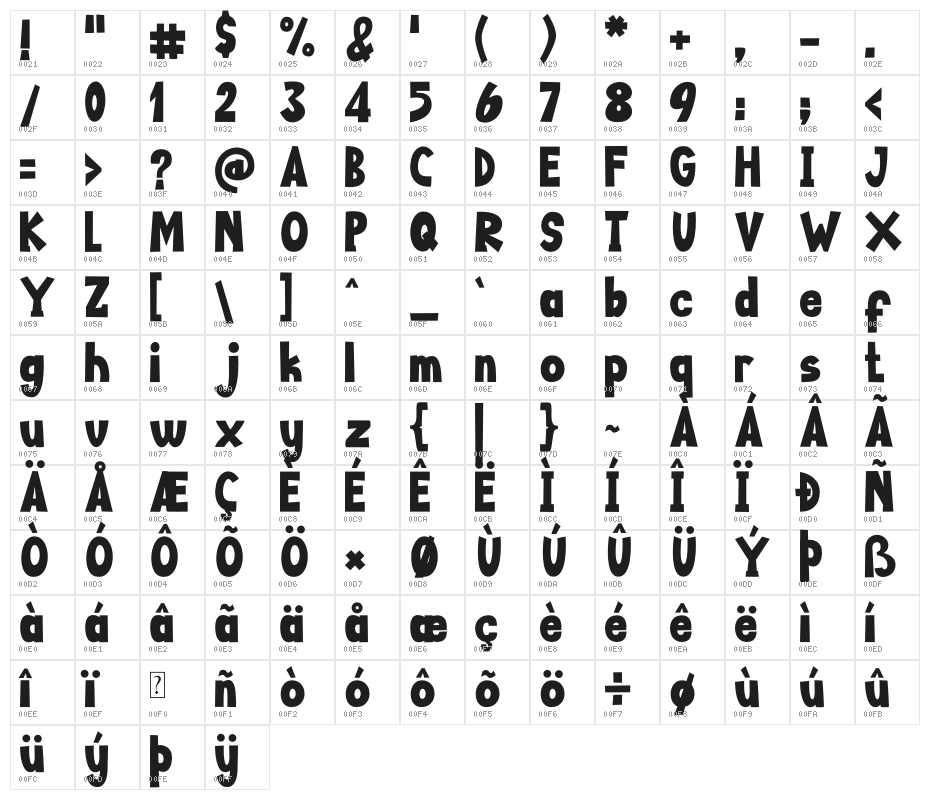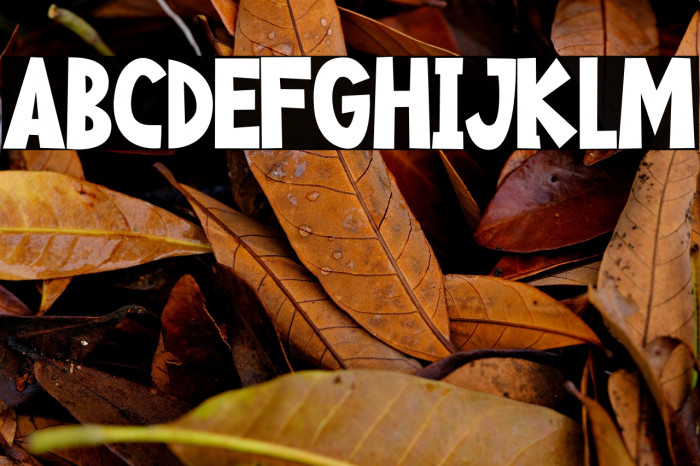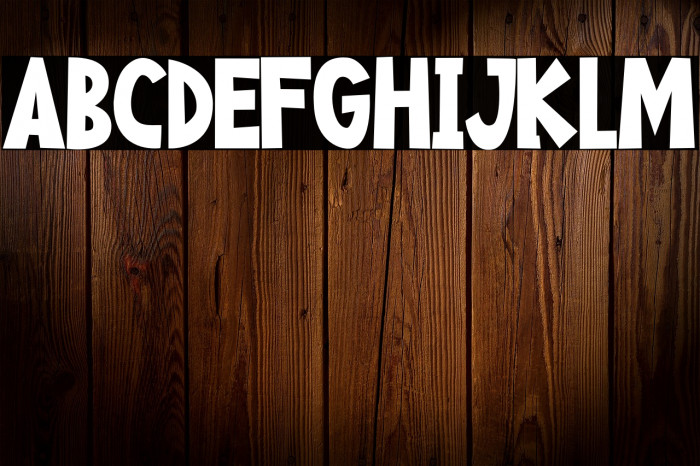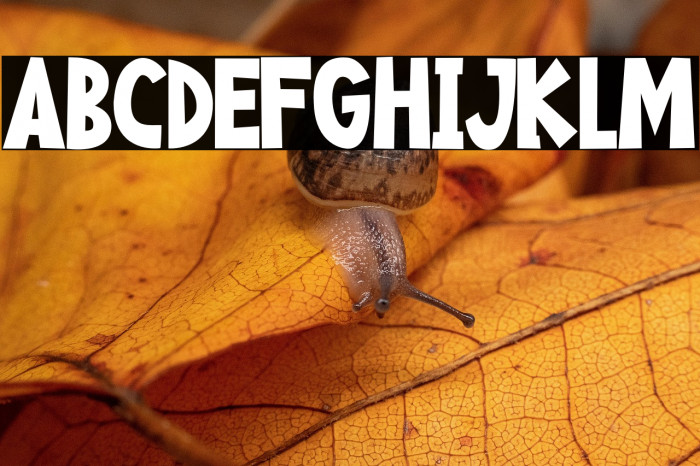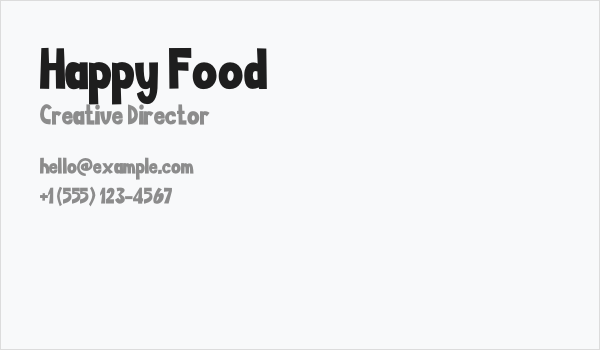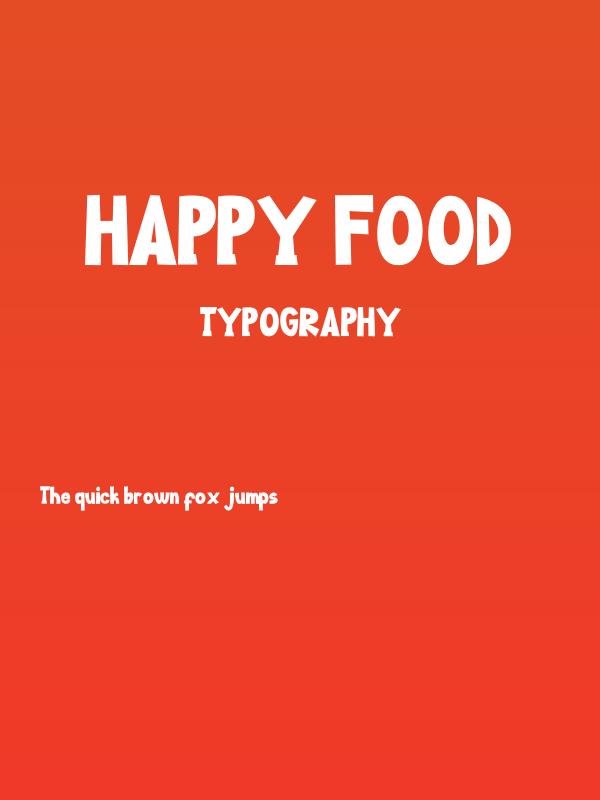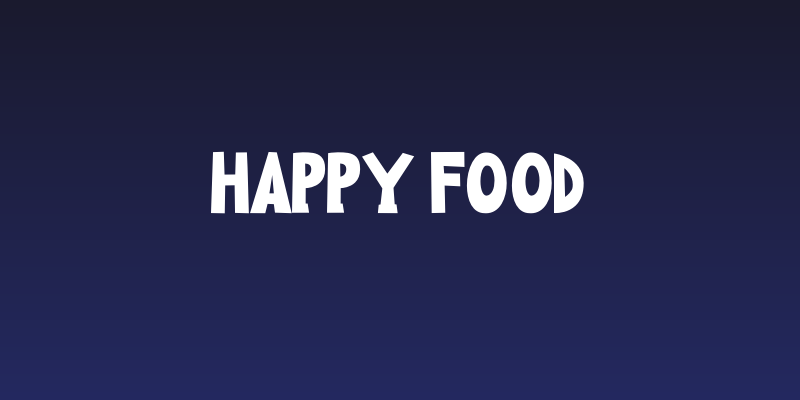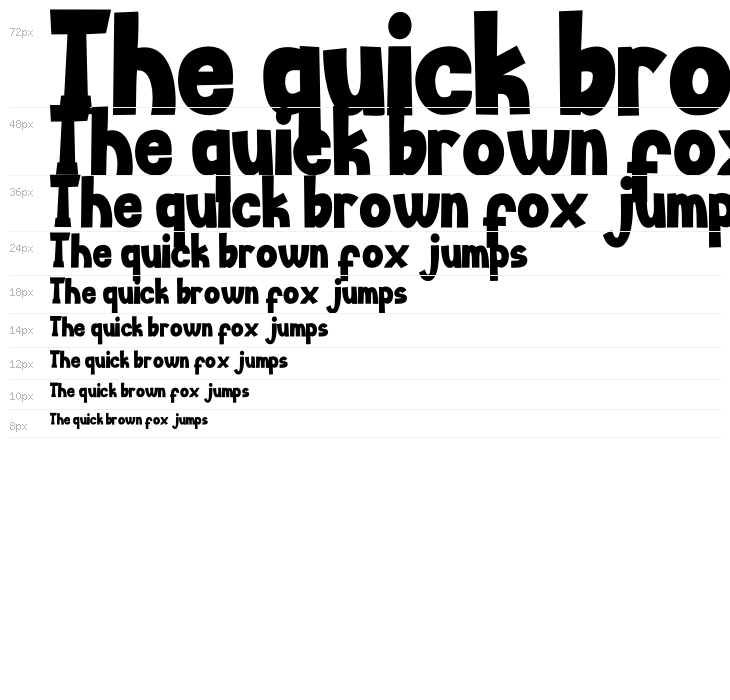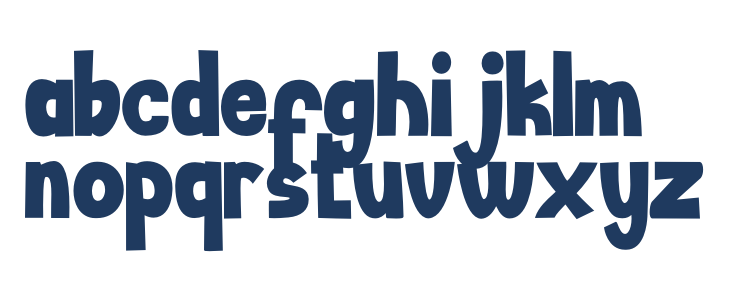
Happy Food Font
Happy Food Description
This font features a playful and bold design, characterized by its thick, uneven strokes and slightly irregular shapes. The uppercase letters are robust and have a whimsical appearance, while the lowercase letters maintain a consistent style with rounded edges and a friendly demeanor. The numbers are similarly bold and prominent, ensuring they stand out in any context. Special characters are crafted with the same playful spirit, making them ideal for creative projects. The overall style is informal and fun, perfect for capturing attention and conveying a sense of joy and creativity.
| Overall Style | Playful, Fun, Whimsical |